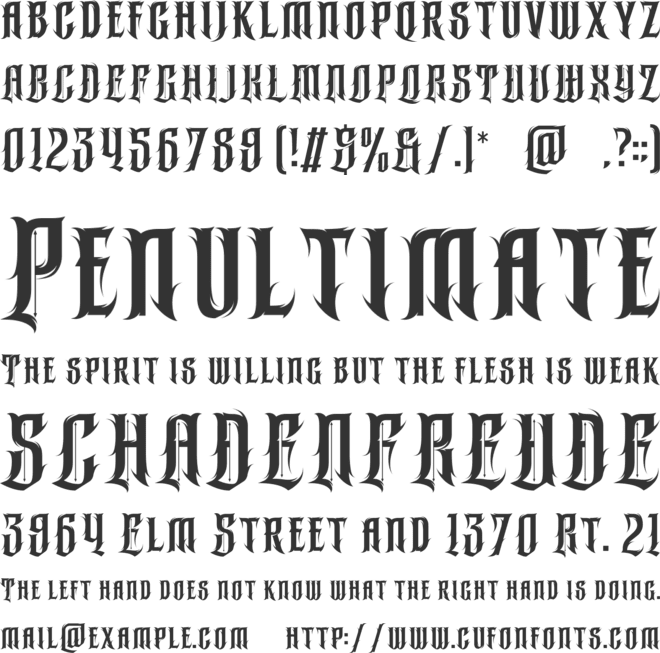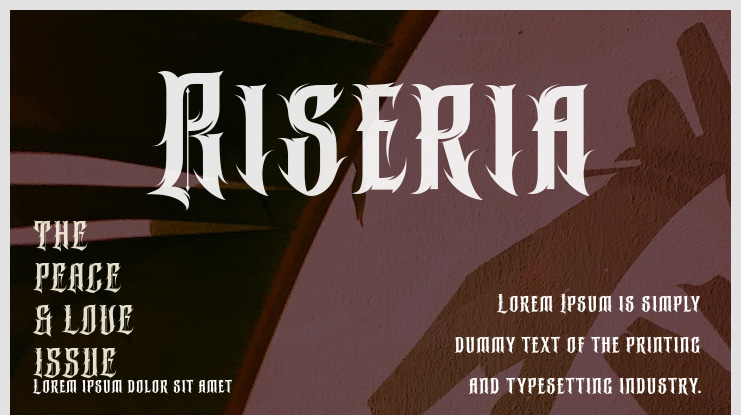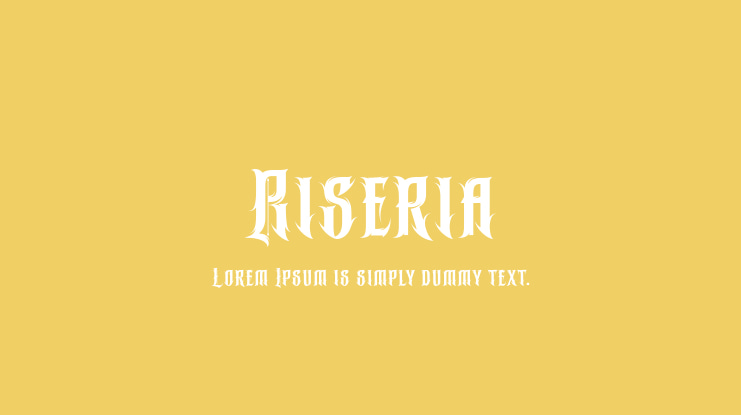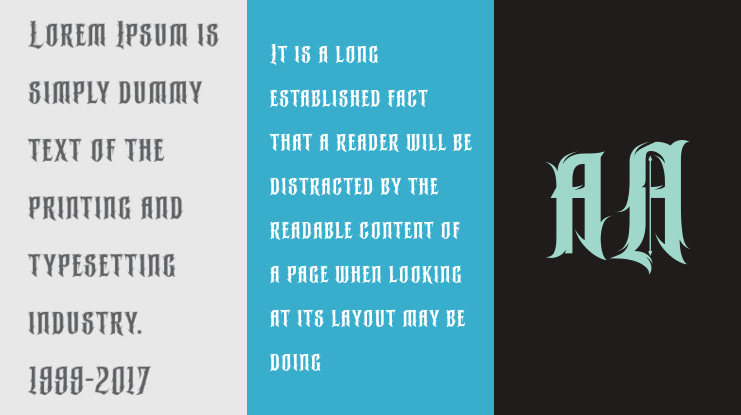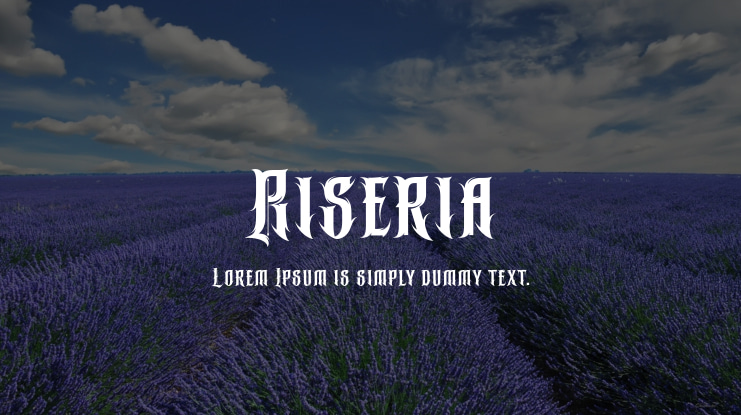
Riseria Font
Introducing the "Riseria" typeface - a bold and innovative font that seamlessly combines the powerful aesthetics of brutalism metal with the intricate elegance of blackletter, embellished with haunting thorn decorations. This font is a remarkable testament to the fusion of diverse design elements, resulting in a visually captivating and unique typographic experience.